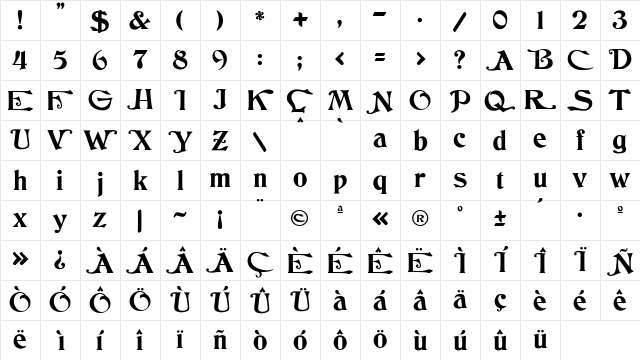
JMH Cthulhumbus UGalt1 Regular
Design Context for JMH Cthulhumbus UGalt1
JMH Cthulhumbus UGalt1 is a composed and adaptable typeface that performs quietly and consistently across a wide range of design contexts.
Pro Tip: Use JMH Cthulhumbus UGalt1 in both headline and body roles to test its range before committing to a single application.